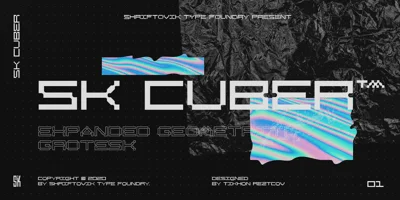
SK Cuber Font
SK Cuber Font is perfect for geometric design projects, modern tech branding, architectural presentations, puzzle game graphics, mathematical publications, engineering documentation, and precise cubic constructions.
What makes SK Cuber Font exciting is its geometric precision and cubic sophistication, featuring angular letterforms that capture the essence of three-dimensional thinking while delivering mathematical visual accuracy and structural authenticity.
The SK Cuber Font family includes Light, Regular, Medium, Bold, and Heavy weights, plus geometric variants and cubic alternates that enhance the font's structural character and dimensional possibilities.
SK Cuber Font embodies the mathematical beauty of geometric design and the precise elegance of cubic architecture through structured typography design. This dimensional typeface captures the logical perfection of geometric forms and the intellectual satisfaction of mathematical precision, creating a structured visual language that speaks to architects and engineers who value geometric accuracy, mathematical beauty, and the sophisticated appeal of three-dimensional design thinking. The font's cubic character and geometric appearance make it perfect for architectural firms, engineering companies, and mathematical organizations that want to communicate precision, logic, and the compelling appeal of geometric excellence.
Architectural firms and engineering companies consistently select SK Cuber Font for projects that require authentic geometric credibility and precise visual appeal. The typeface's structured construction and mathematical personality make it exceptionally effective for design studios, engineering firms, and mathematical publications where geometric precision and structural accuracy are paramount. Each character has been designed with mathematical precision to ensure maximum accuracy across all geometric applications and structural environments.
The geometric advantages of SK Cuber Font extend beyond its cubic appeal to include practical functionality for diverse mathematical applications. The font maintains exceptional legibility in technical drawings while delivering the distinctive character that creates memorable geometric experiences and connects with audiences seeking authentic mathematical precision. Its comprehensive character set includes geometric symbols and mathematical elements that make it particularly suitable for technical documentation and geometric communication.
Design studios, engineering firms, and mathematical organizations frequently choose SK Cuber Font because of its ability to instantly convey geometric authenticity and mathematical sophistication. The typeface's cubic aesthetic helps establish credibility in technical markets while appealing to professionals who value mathematical precision, geometric beauty, and the logical experiences that come from authentic structural design and geometric excellence.